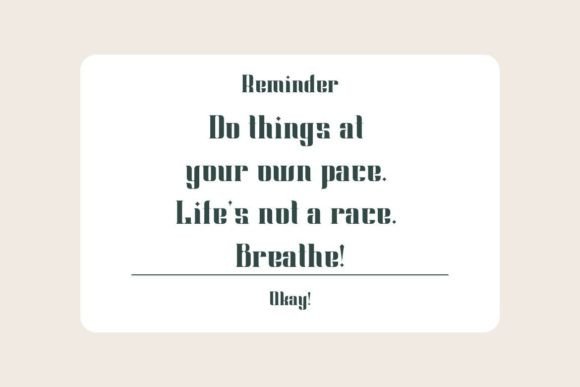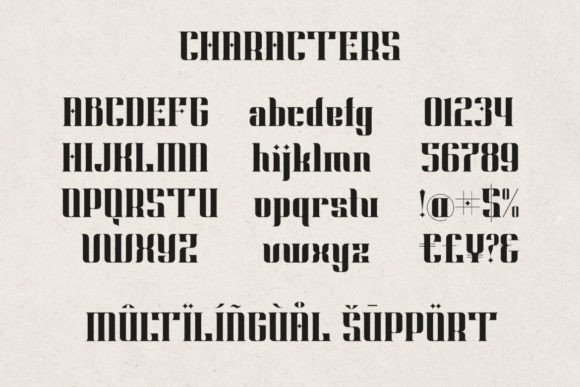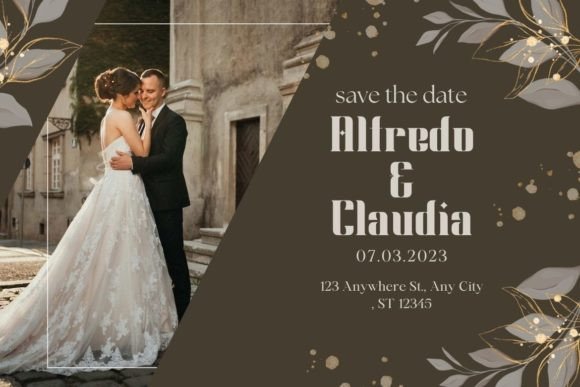
Introduction to Slovakie Font
Introducing the newSlovakie Typeface.
is a luxury and glamour display typeface,certainly not the kind of typeface you see everyday and Utterly unique This font is both modern and nostalgic and works great for logos, magazine, social media,etc.
Slovakie Font offers exceptional quality and versatility, making it a valuable addition to your design toolkit. Whether you’re creating for personal projects or commercial use, Slovakie Font delivers professional results.